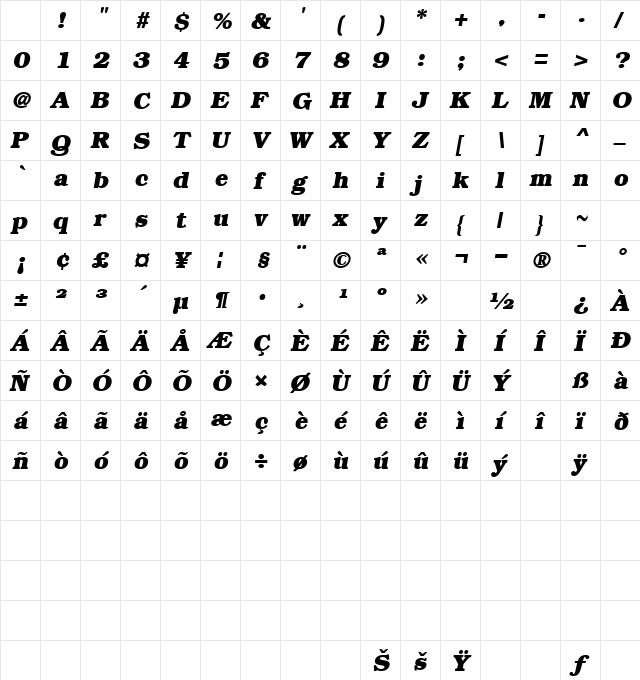
Complete Book Bold-Oblique glyph index. Displaying only characters natively supported by Book Bold-Oblique font.
Book is a composed and adaptable typeface that performs quietly and consistently across a wide range of design contexts. The slanted form adds forward momentum and visual energy. Its bold stroke weight gives it real presence on the page.